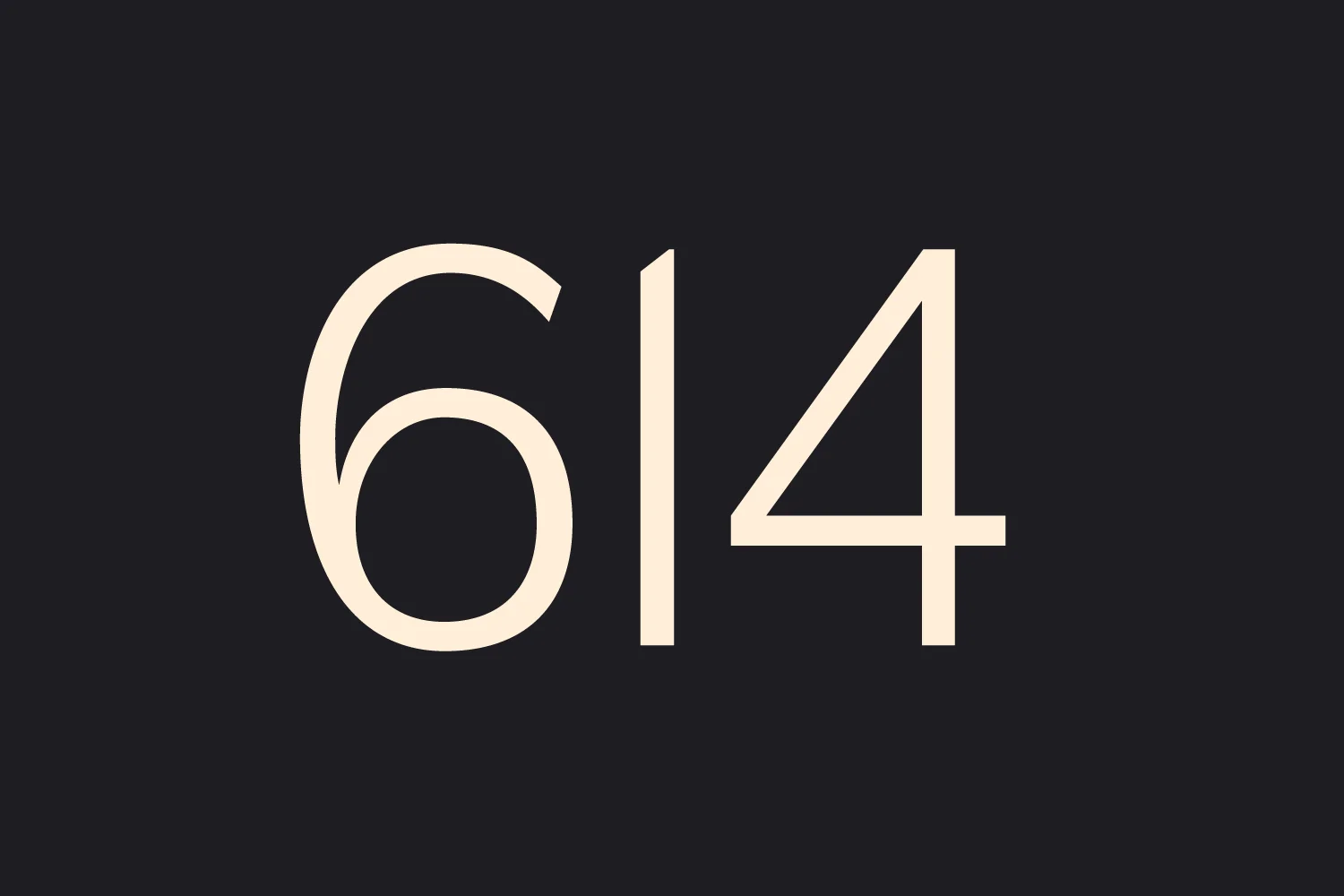
Americane
A sans-serif from HvD Fonts drawing on American grotesque conventions, details of which were unavailable at time of retrieval.
The name and foundry context suggest a grotesque or geometric sans in the American tradition, though full classification details could not be retrieved due to access restrictions.